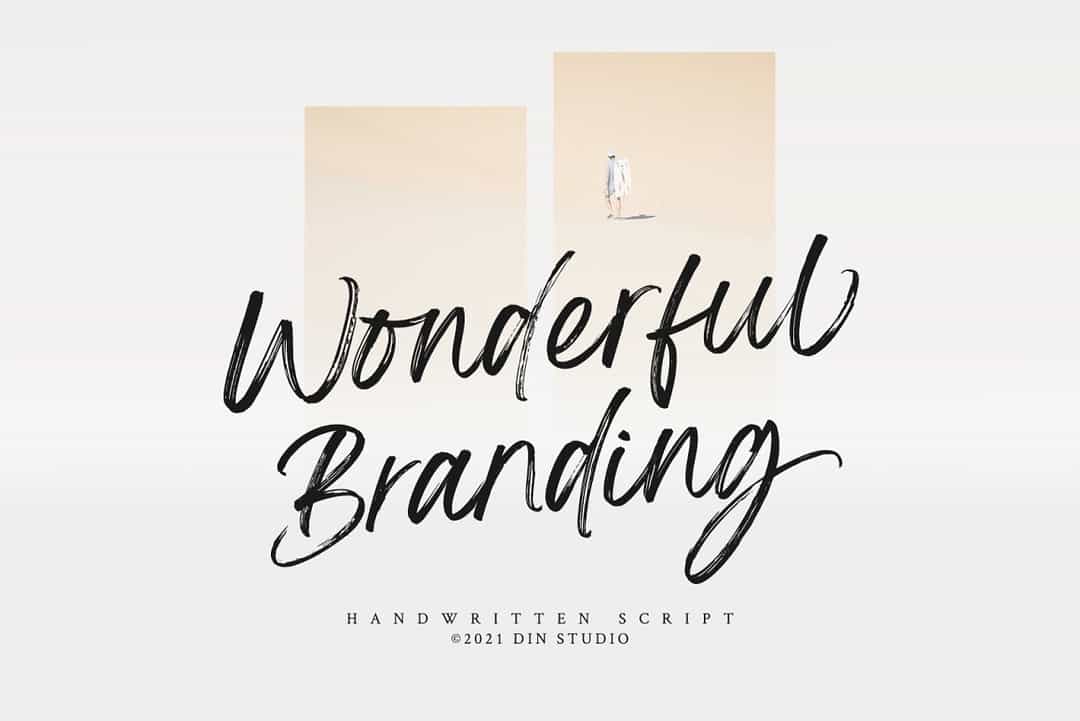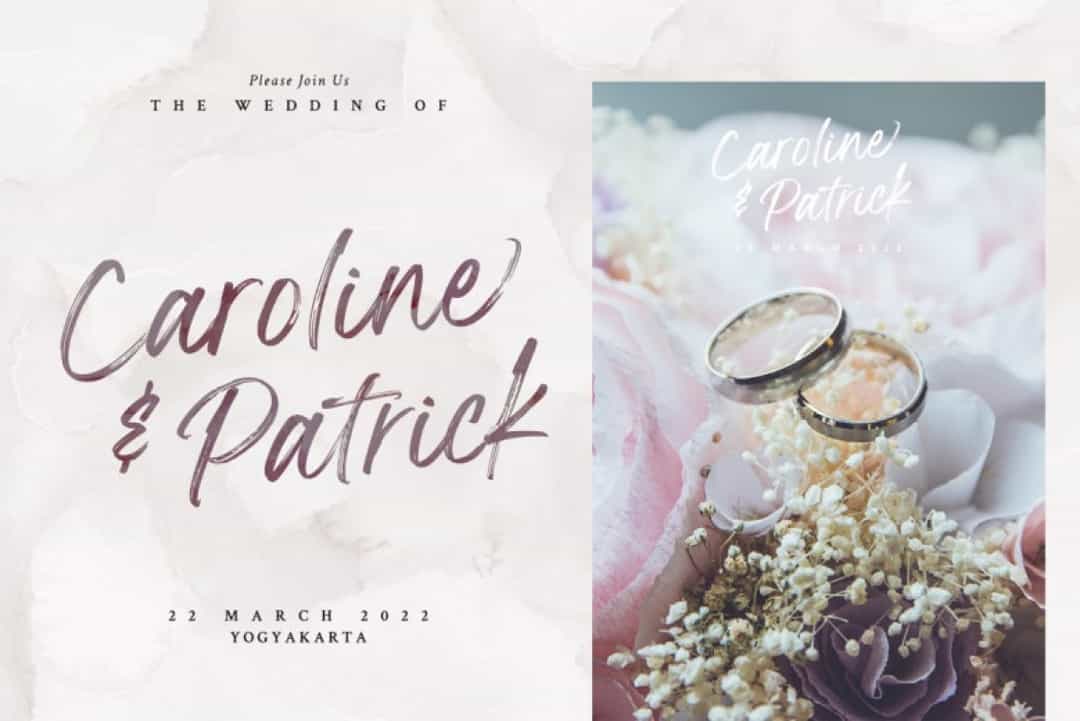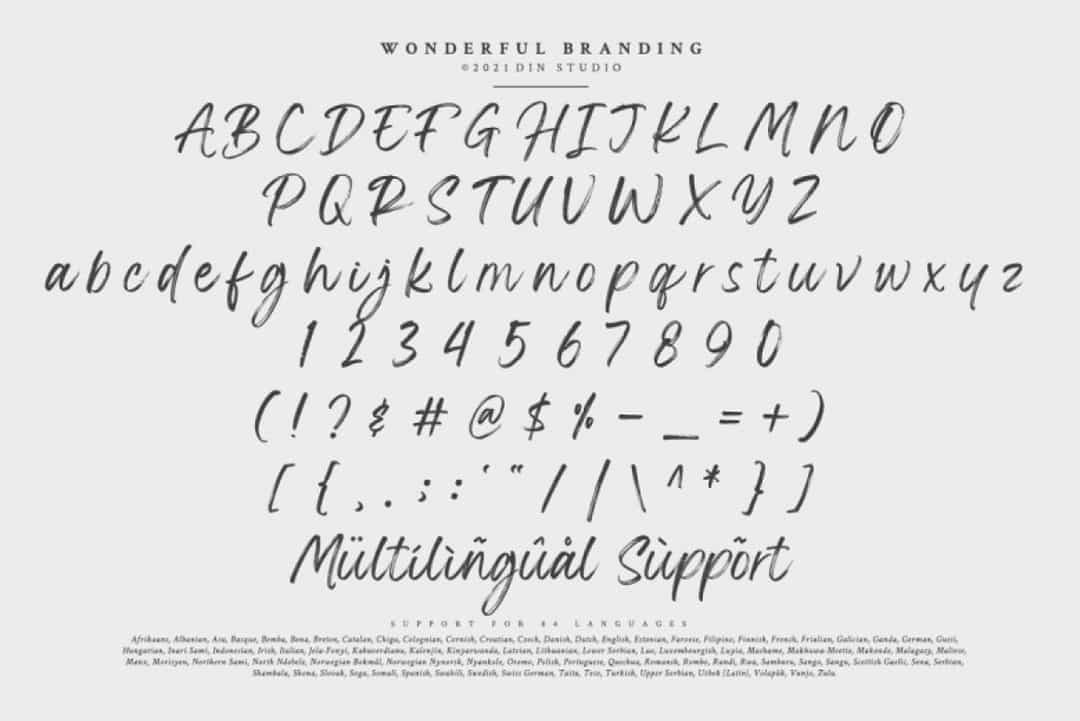
Wonderful Branding goes beyond being just another handwritten script font; it captures the essence of style and modernity with passion and elegance in each bend and curve of this font – creating memorable impressions of sales growth while building lasting customer loyalty.